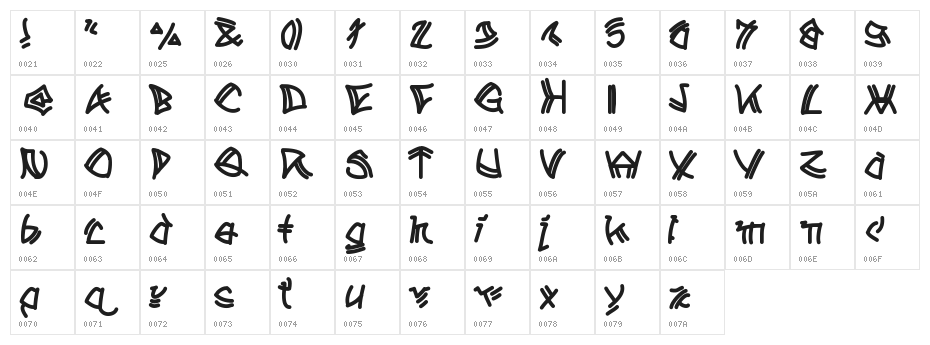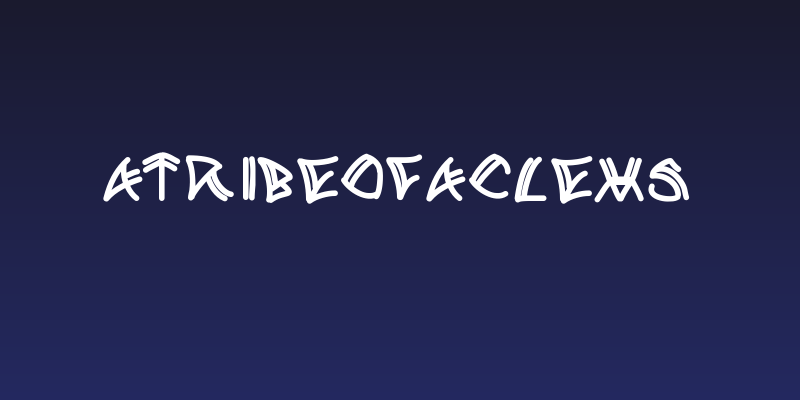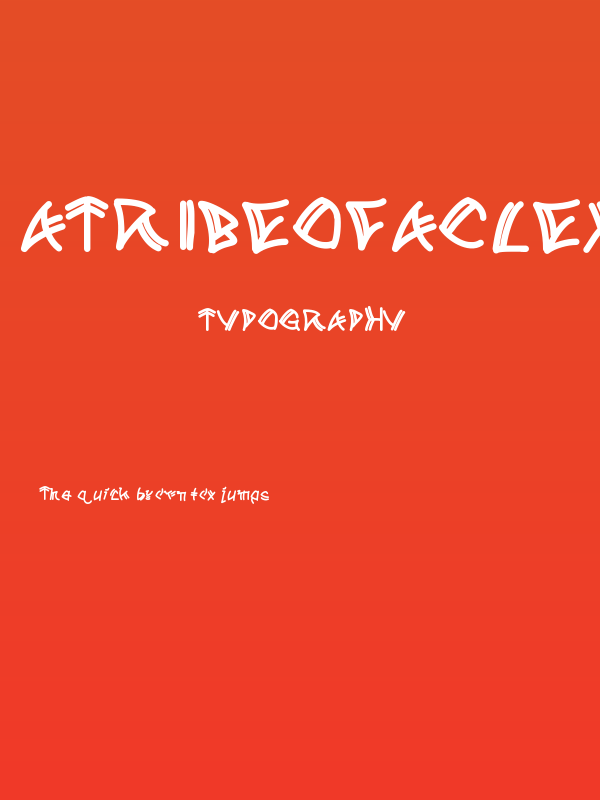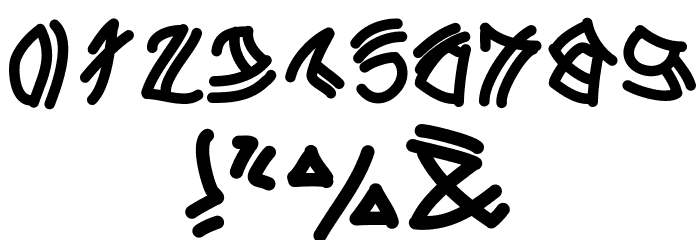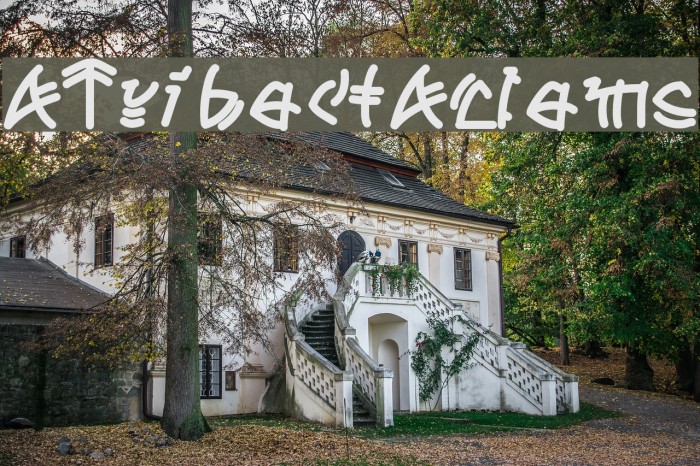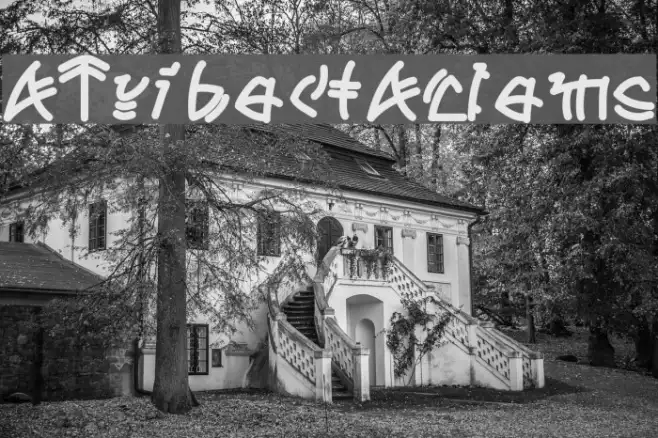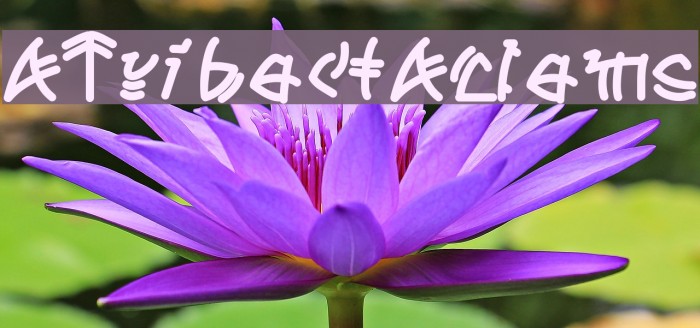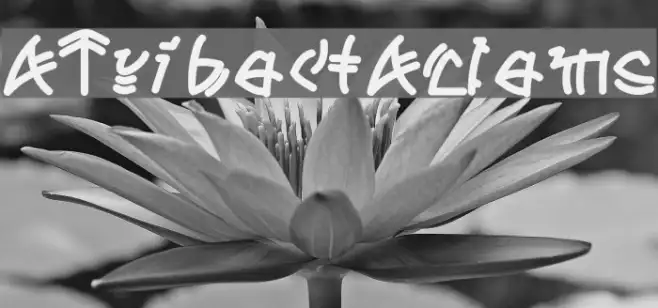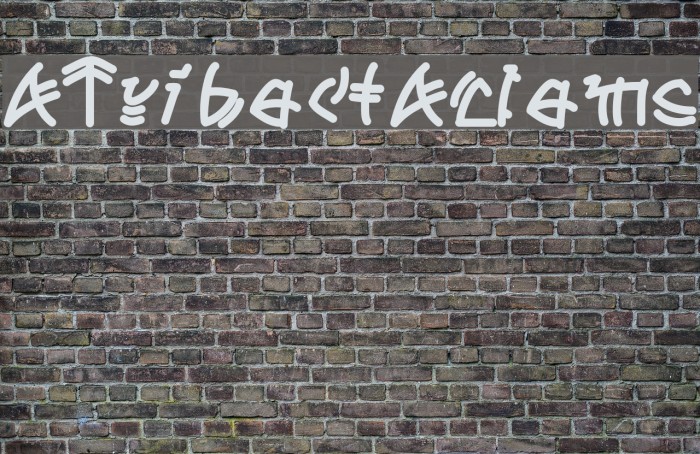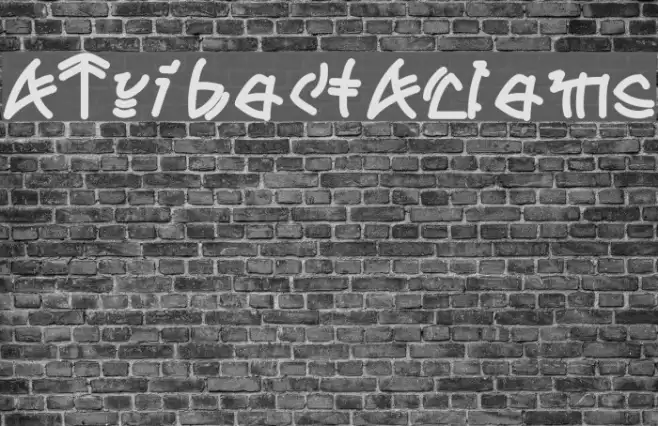
ATribeofAclems Font
ATribeofAclems Description
This font features a unique, tribal-inspired design with bold, angular strokes and a hand-drawn aesthetic. The characters are stylized with a sense of movement and energy, incorporating sharp edges and curves that give it an artistic flair. The uppercase and lowercase letters maintain a consistent style, while the numbers and special characters complement the overall look with similar design elements. This font's distinctive appearance makes it stand out, offering a creative and unconventional option for various design projects.
| Proposed Projects | Ideal for projects requiring a creative and artistic touch, such as posters, album covers, and branding for cultural or artistic events. |